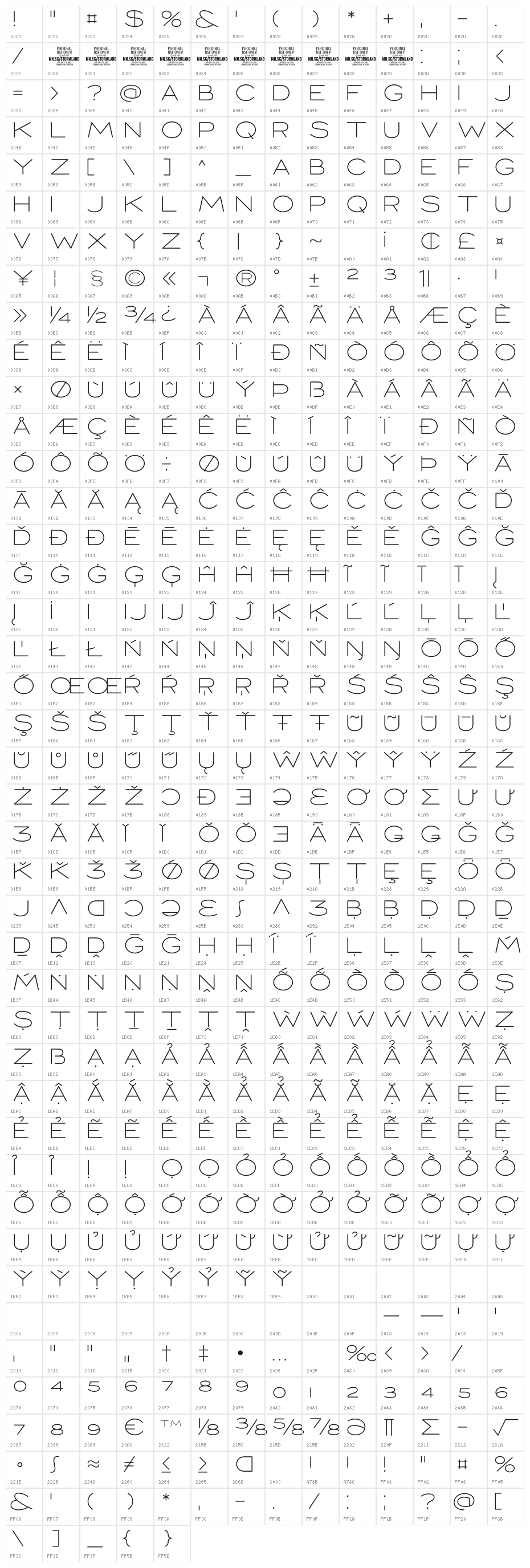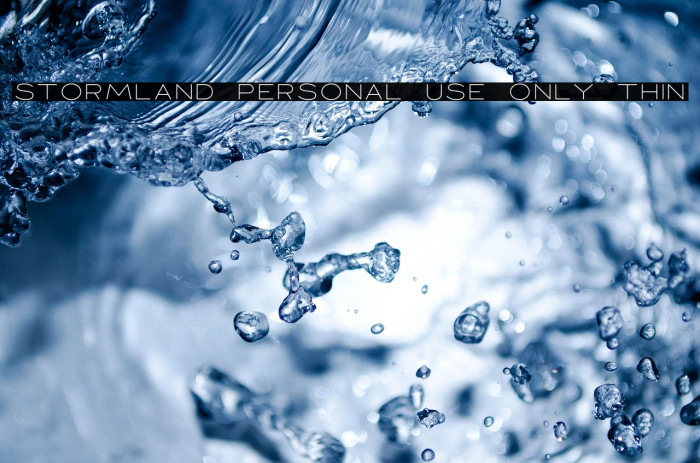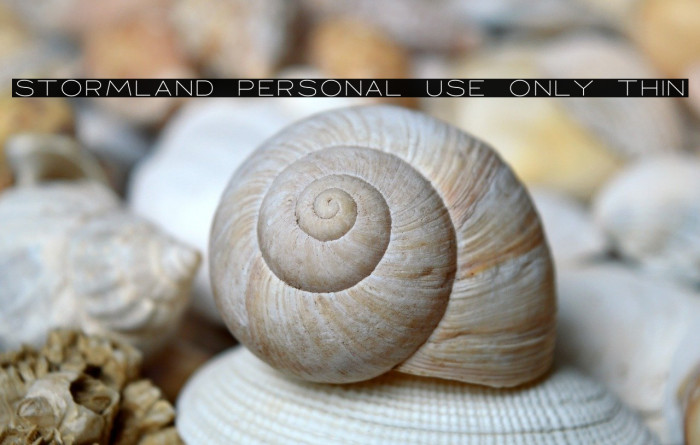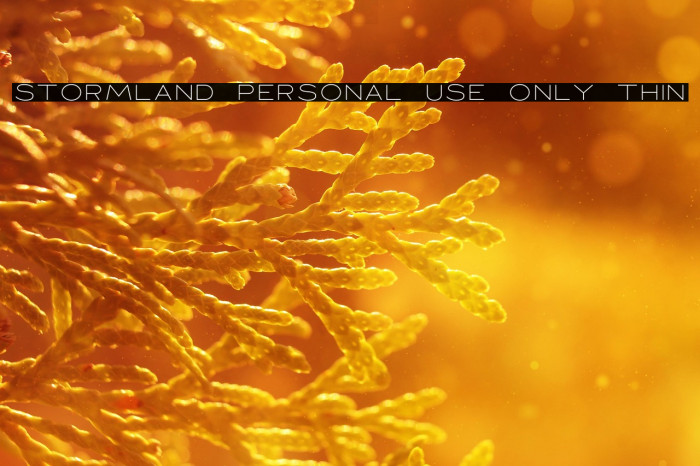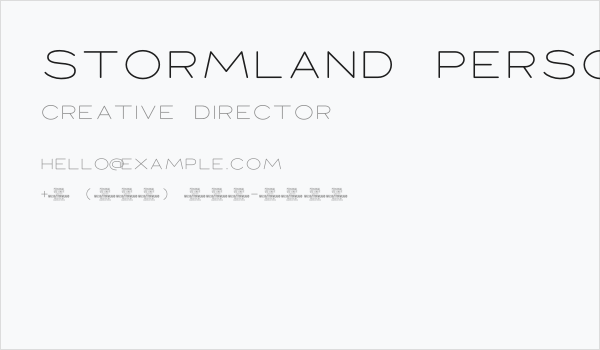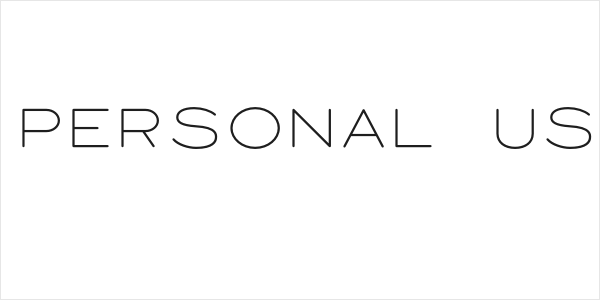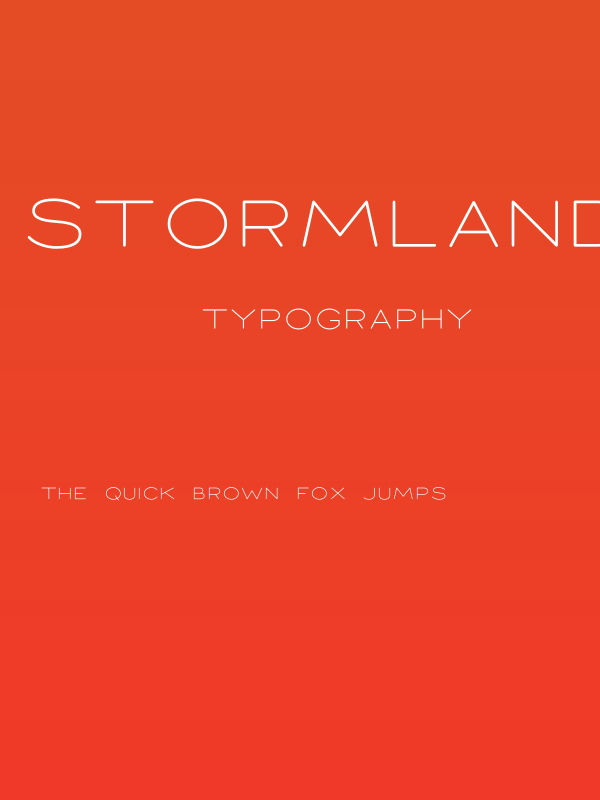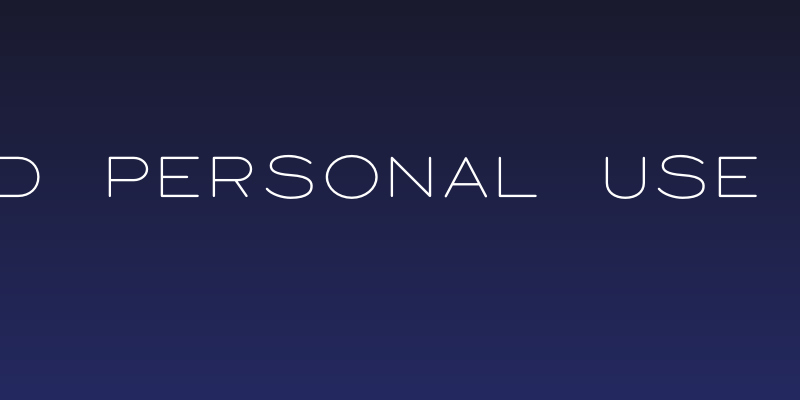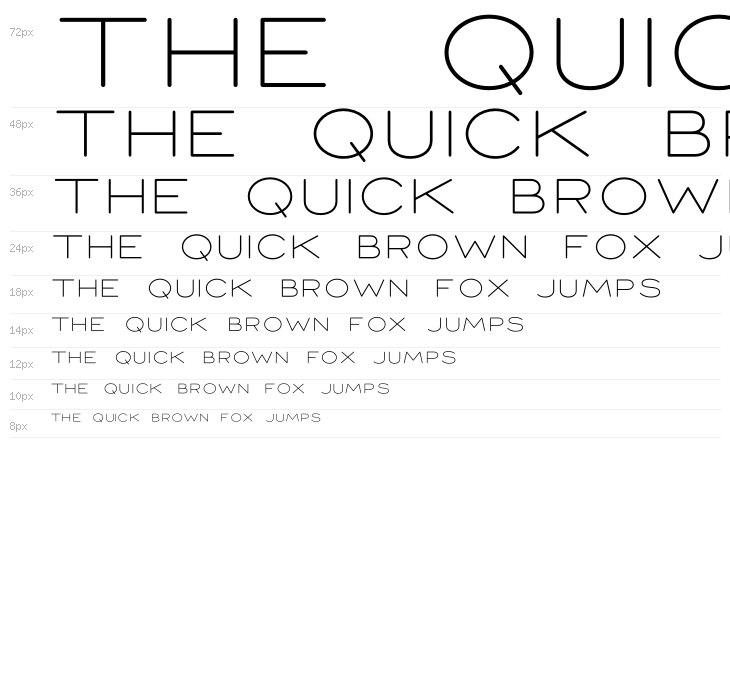
Stormland PERSONAL USE ONLY Thin Font
Stormland PERSONAL USE ONLY Thin Description
This font features a sleek and minimalistic design with thin, clean lines that give it a modern and sophisticated appearance. The characters are well-proportioned and maintain a consistent stroke width throughout, contributing to a sense of elegance and simplicity. The uppercase and lowercase letters are designed with a geometric precision, making them highly legible and suitable for various design applications. The numerals and special characters complement the overall style, ensuring versatility in usage. This font's understated elegance makes it ideal for projects that require a contemporary and refined aesthetic.